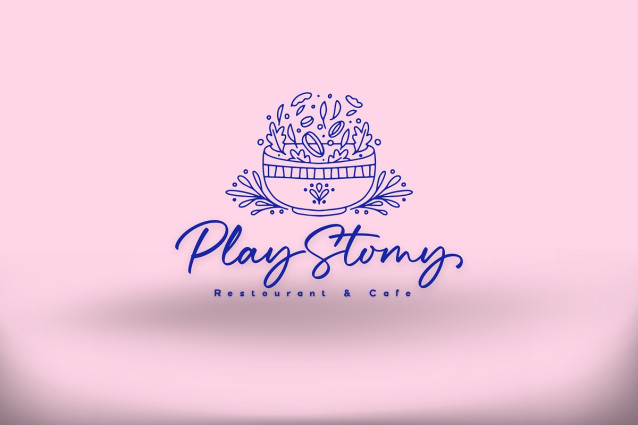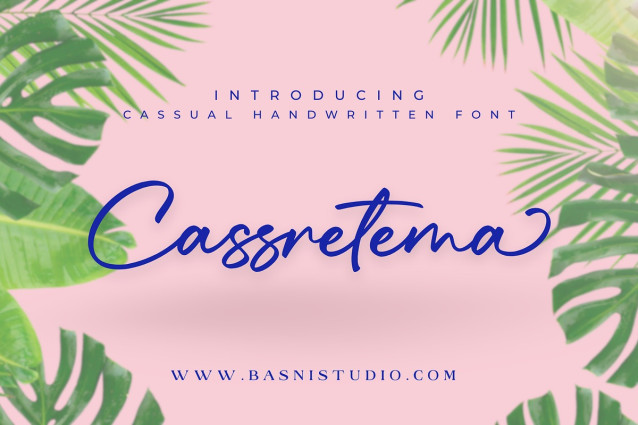
Cassretema Script Font
Cassretema Script Font is a beautifully crafted handwritten typeface that adds a natural, personal touch to everything from branding and social media to invitations and packaging.